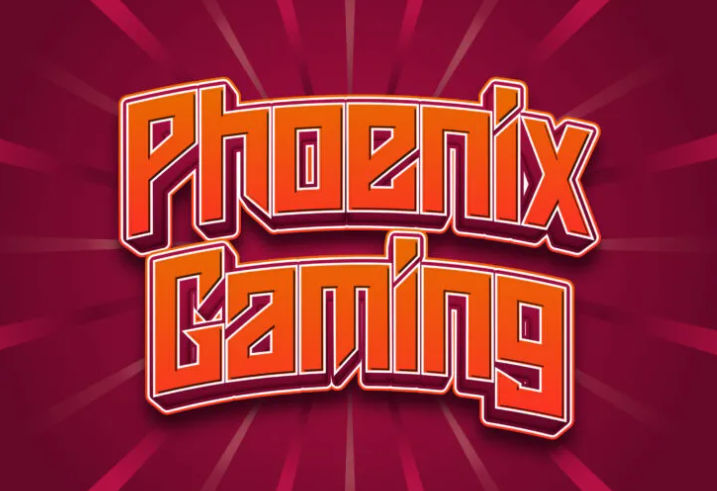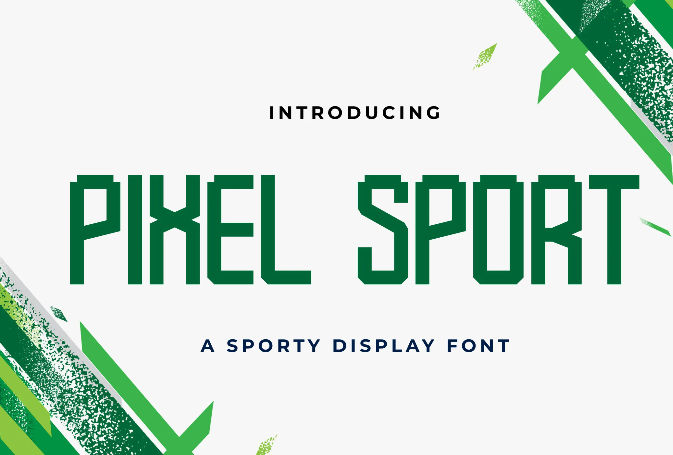
Top 30+ Gaming Font Picks for Gaming-related Designs in 2024
The gaming industry has grown even larger than Hollywood and continues to expand each year. A significant part of this success is credited to the exceptional design seen in many great video games. If you’re a designer promoting games, finding fonts should be a top priority. We’ve handpicked cool gaming font recommendations to get you started.
Armygedon – Modern Display Font
It’s a bold and futuristic gaming font with sharp edges that convey strength and modernity for impactful game titles and branding.
Super Guardian – Futuristic Sans Font
Super Guardian is a cutting-edge sans serif font for gaming that exudes futuristic vibes with sleek lines for immersive digital adventures.
Esportiva – Sporty Display Font
Such an active gaming font for embodying the essence of competitive gaming through its bold and polished style.
Pixel Sport – Sporty Display Font
Pixel Sport Display Font is a dynamic gaming font that delivers a sporty vibe for gaming experiences.
Rusdy Ibra – Sporty Display Font
The sporty display gaming font brings energy and playful impact to gaming aesthetics.
Sporticular – Sporty Display Font
Sporticular is a vigorous best font for gaming that adds futuristic rectangular letter styles for captivating gaming visuals.
Cyber Display – Modern Sporty Font
It’s a sleek gaming font that blends modernity and sporty vibes for dynamic in-game displays.
Asteroid Font – Futuristic Sans Serif
Asteroid Font is a futuristically eccentric letter form and lines for game designs that adds a modern, high-tech vibe to virtual adventures.
Bagrek Display – Sans Serif Font
It’s a bold, sans-serif gaming font that combines modernity with elegance to enhance game interfaces with its minimalist and full of contrasting characters’ lines.
Super Punch – Futuristic Sans Font
Pick Super Punch Sans Serif as a forward-looking typeface for gaming that radiates confidence and contemporary style for engaging digital visuals.
Superbolt – Futuristic Sans Font
Looking crisp, stylish, and lively, this modern sans-serif typeface rejuvenates gaming visuals with bold styling.
Phoenix Gaming – Futuristic Sans Font
Phoenix Gaming is a sleek, bold, and futuristic sans gaming font presenting a lively atmosphere.
Technocra – Futuristic Sans Font
The Technora Sans Serif typeface radiates a contemporary style for expressing a technology-driven gaming visual appeal.
Roguedash – Stylish Sans Font Family
Roguedash Stylish typeface is one of cool gaming fonts that is part or elegant sans-serif font family with a voguish tone and is suitable for diverse design applications.
Queental – Elegant Sans Font Family
Queental is a sophisticated font with elegant curves, balanced proportions, and thin weights that’s perfect for modern and stylish gaming designs.
Budi Mose – Sporty Display Font
Budi Mose Display font has striking characters that convey excitement and evoke competitiveness just by looking at it!
Virgiano – Decorative Sporty Font
Virgiano Sporty font has decoratively stylish strokes and lines that create a versatile and eye-catching typeface for various gaming-related designs.
Floretta – Playful Display Font
This cheerful typeface is also applicable for gaming to seize attention with its lively letter design.
Rox Display – Playful Display Font
With its bold and rounded letter shapes, this one is a strikingly playful font. Rox Display is perfect for energizing gaming designs.
Time Mover – Playful Display Font
Time Mover is the best font for horror gaming. Playfully haunting, it adds spine-chilling charm to your design and evokes fear seamlessly.
Super Wadon – Haunted Display Font
It’s a spirited gaming font with a haunted vibe that’s perfect for horror-themed projects like games, movies, flyers, posters, and crafting.